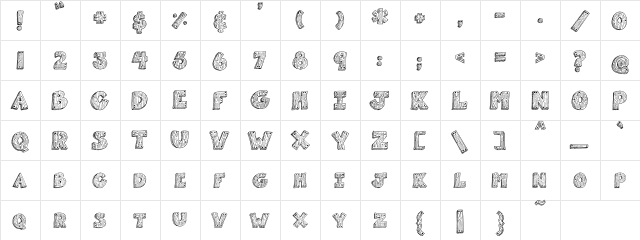
PC Wooden Letters Regular
Design Context for PC Wooden Letters Typeface
PC Wooden Letters echoes the hand-painted signage and woodblock typography of the American frontier, with a warm, rugged personality.
A natural fit for craft spirits, ranch branding, rodeo events, and Americana-inspired design work.
Font Pairing: Combine PC Wooden Letters with a simple slab or neutral sans — period-accurate companions reinforce the vintage feel without competing for attention.
Pro Tip: Use PC Wooden Letters for short, impactful bursts of text — it shines in poster headlines and product names rather than extended copy.